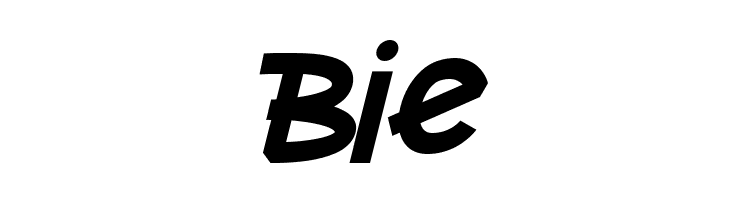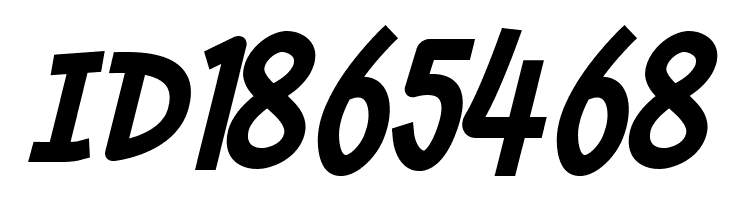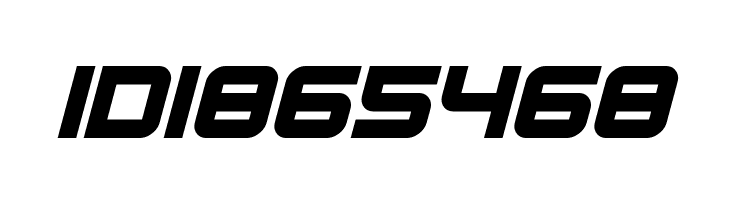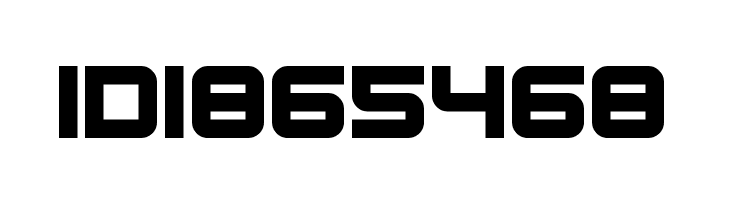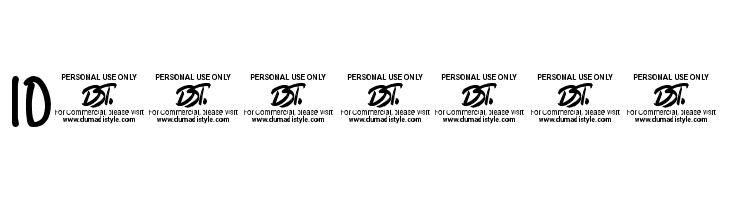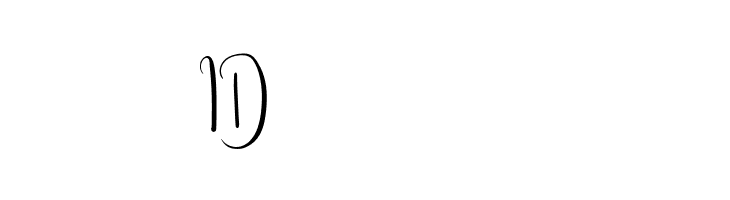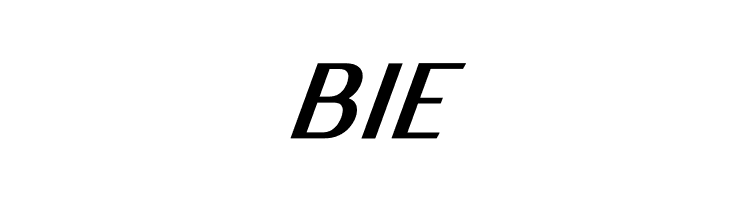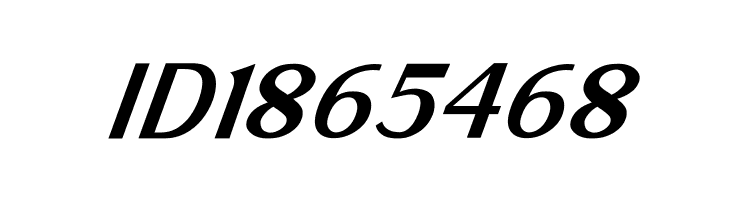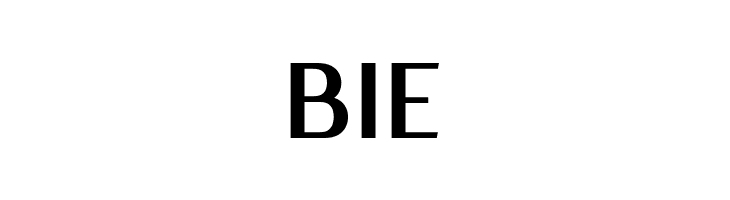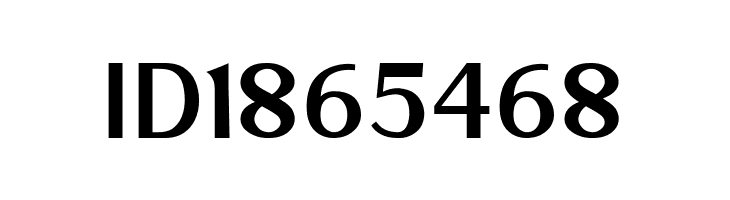
A bold, modern sans-serif font with a clean and professional appearance.
A modern, bold, and italicized font with a sleek and dynamic appearance.
A sleek, modern italic font with smooth curves and clean lines.
A bold, outlined font with a modern and clean design.
A bold, italicized font with outlined characters and a modern aesthetic.
An elegant script font with high contrast and decorative swashes.
An elegant, flowing cursive script with high contrast and intricate swirls.
A bold, distressed font with a grunge, splattered ink appearance.
A bold, rounded font with a modern and playful style.
A bold, geometric font with rounded edges and a retro digital style.
A playful, bold font with a shadow effect and rounded, bubble-like characters.
A modern, rounded font with a clean and approachable design.
A modern, geometric font with bold, abstract shapes.
A bold, futuristic font with geometric and tech-inspired design.
A decorative script font with elegant loops and swirls, offering a playful yet sophisticated style.
A classic, elegant script font with vintage Hollywood flair.
A classic serif font with strong readability and elegant design.
A bold, expressive script font with flowing, cursive letters.
A decorative script font with elegant swashes and flowing letters.
An elegant script font with flowing, interconnected letters and decorative swashes.
A bold, playful typeface with rounded, bubbly characters.
A bold, playful script font with flowing, energetic letterforms.
A playful, bold font with rounded edges and a slightly condensed form.
A playful, hand-drawn font with rounded edges and a whimsical style.
A playful, hand-drawn style font with tall, narrow letters and consistent stroke thickness.
A bold, dotted display font with a modern, geometric style.
A bold, 3D, filled italic font with a modern, dynamic style.
A bold, 3D font with a filled interior and thick outline, perfect for impactful headlines.
Bold, 3D italic font with a futuristic and dynamic style.
A bold, 3D geometric font with a modern, futuristic style.
A bold, italicized font with a dynamic and modern style.